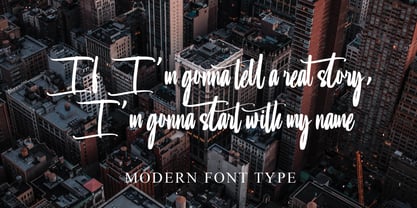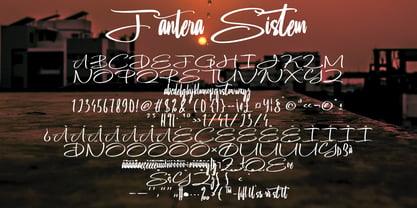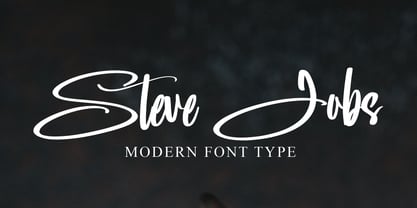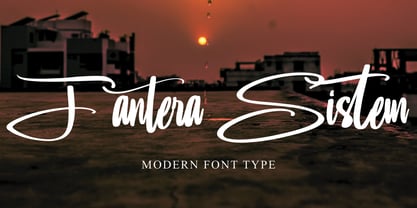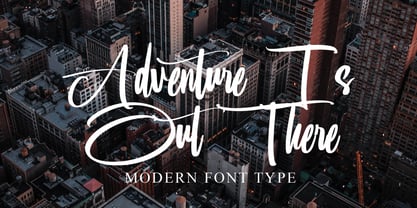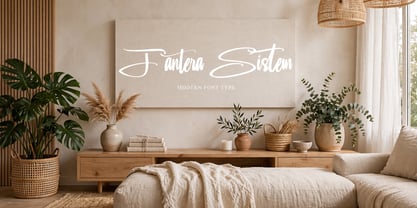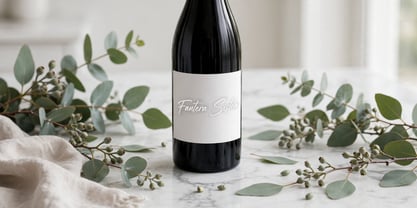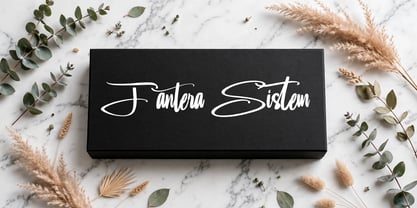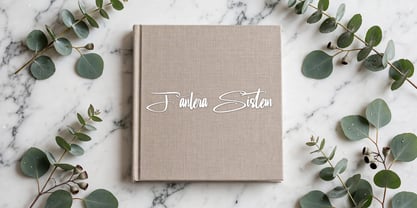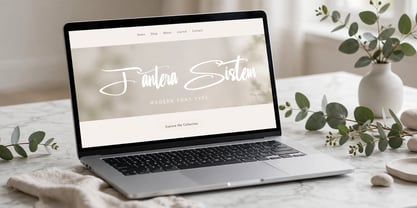
Fantera Sistem
by Ayska
The Fantera Sistem Font Family was designed by Dhoni Trihatmoko and published by Ayska. Fantera Sistem contains 1 styles. More about this family
Immerse yourself in the captivating world of Fantera Sistem, a distinct font that beautifully marries modern aesthetics with the organic appeal of handcrafted typography. Carefully curated, Fantera Sistem exudes a unique sophistication and cultivated elegance that sets it apart, making it an essential asset for all your creative pursuits. Allow the spellbinding charm of this font to draw in your blog audience, add a unique, curated feel to your digital planner designs, enhance your invitations with an added touch of allure, or convey feelings in your handmade greeting cards with articulate finesse. Experience the ageless grace and inventive flair of Fantera Sistem as it infuses life into your carefully curated photo collections or custom home decor assortments. The font’s exceptional capability to transform standard digital crafting into compelling visual narratives is unparalleled. Amplify your creative journey with Fantera Sistem in your toolkit and witness your artistic vision morph into distinctive masterpieces of unrivaled brilliance. Yield to the mesmerizing aesthetic pull of Fantera Sistem and watch your inventive ideas soar into extraordinary, radiant art pieces